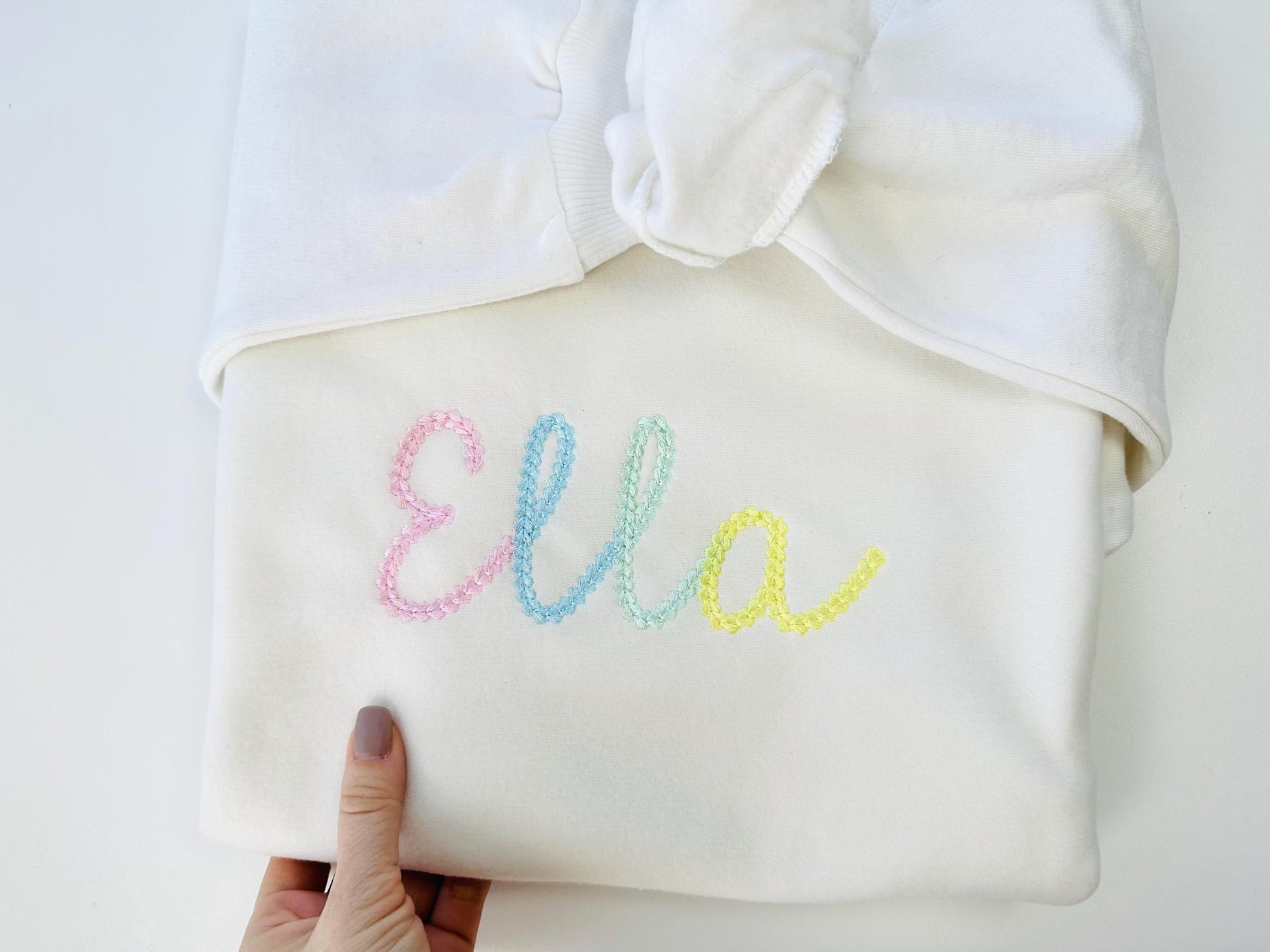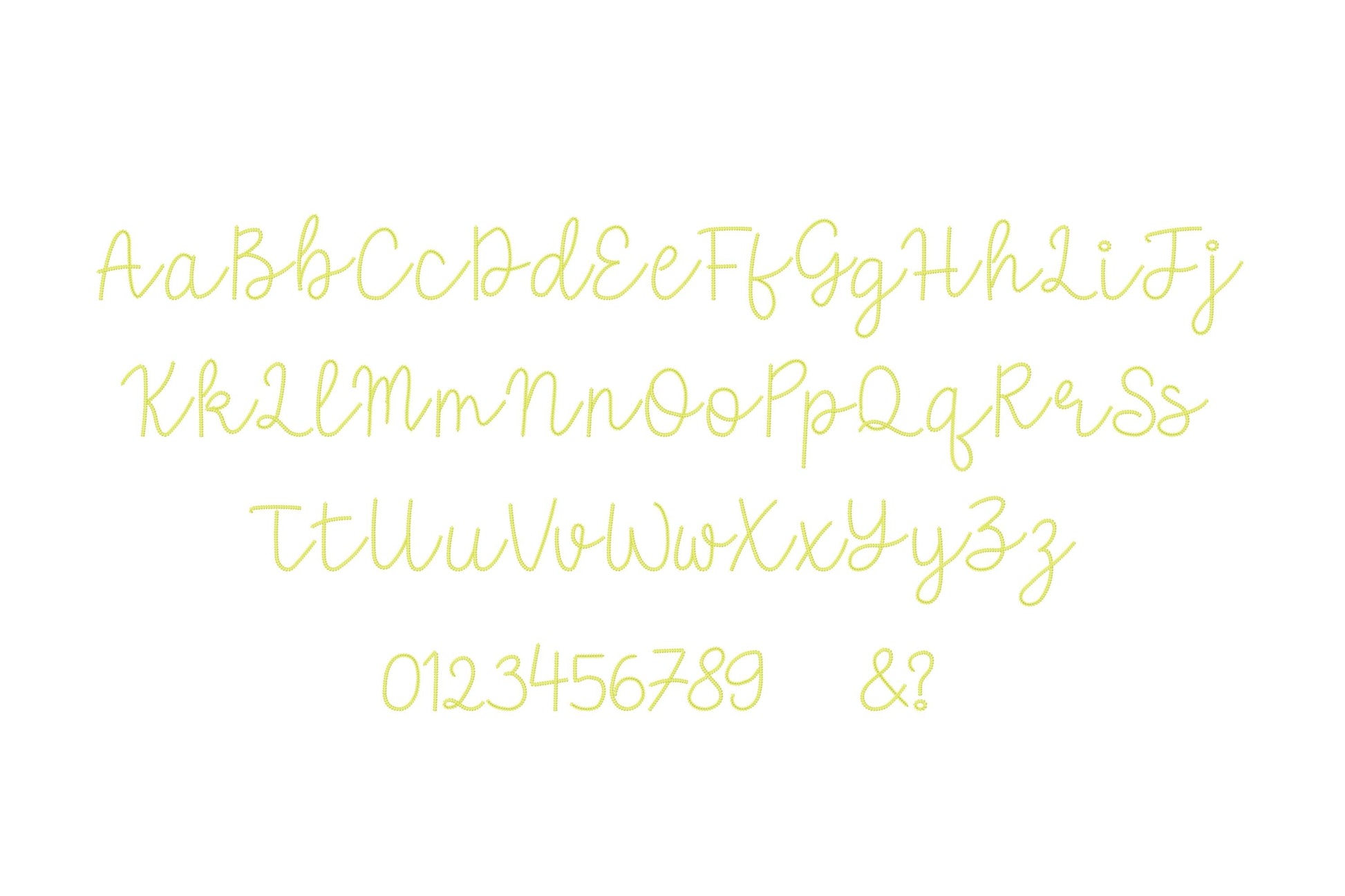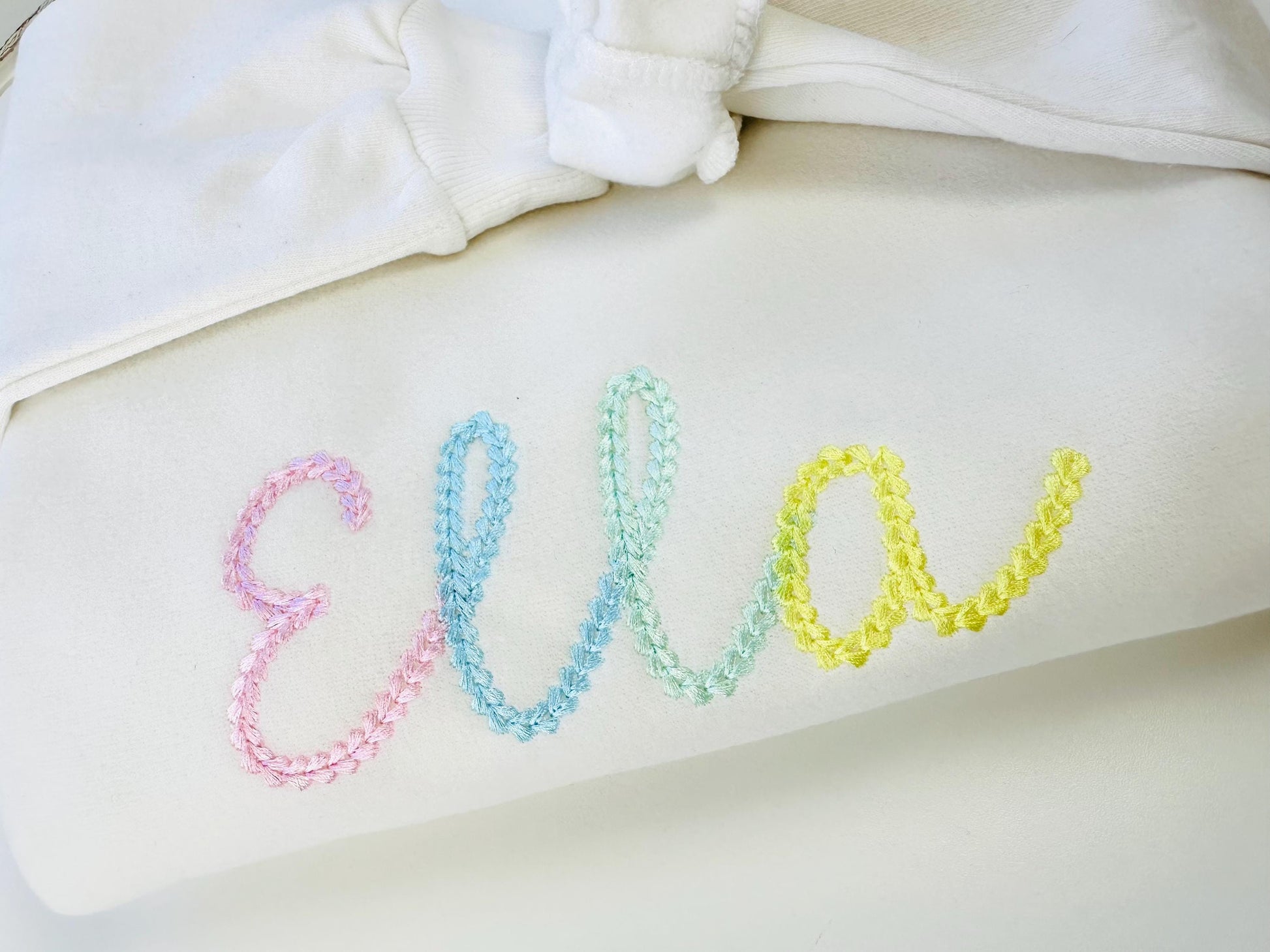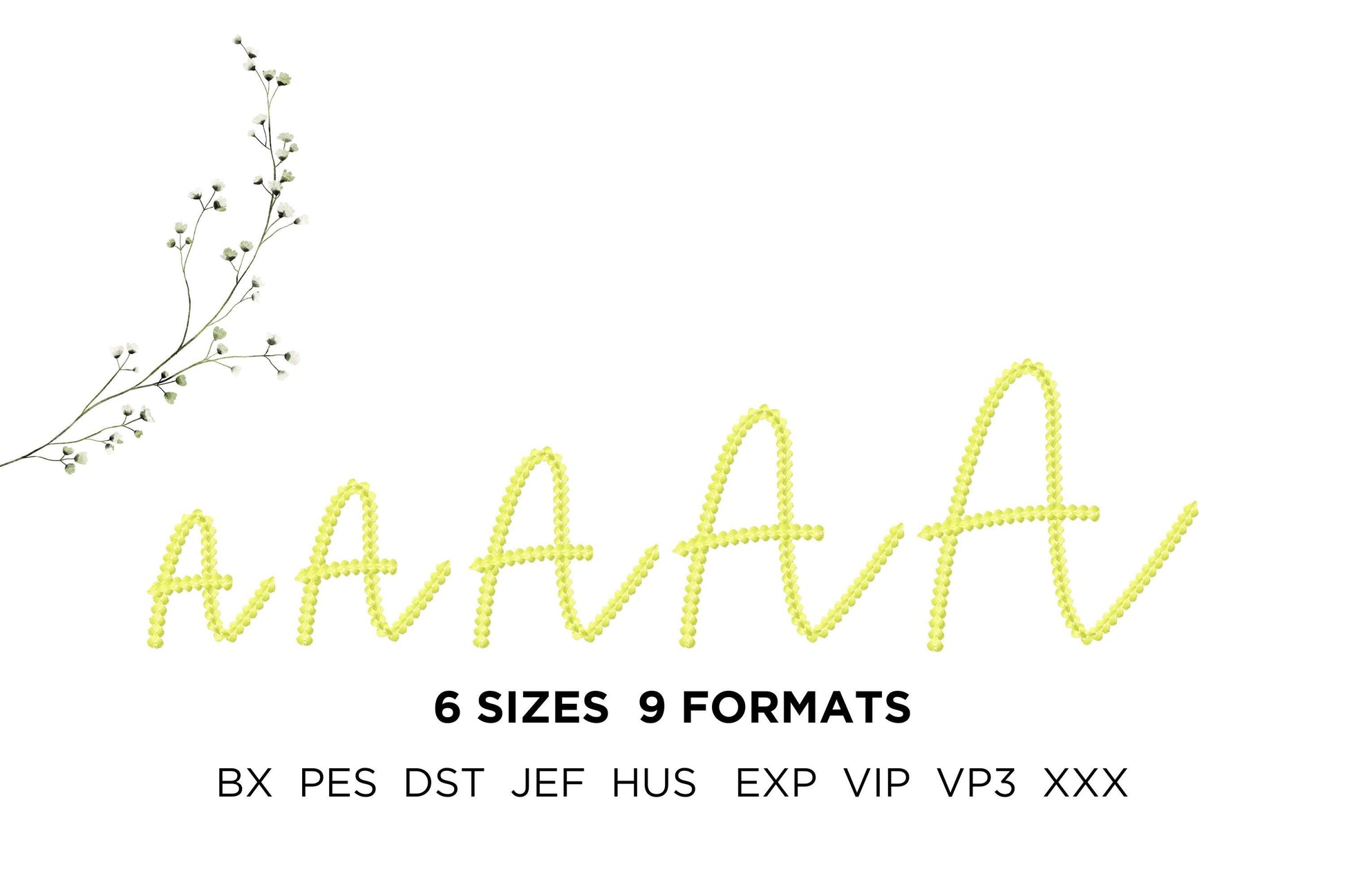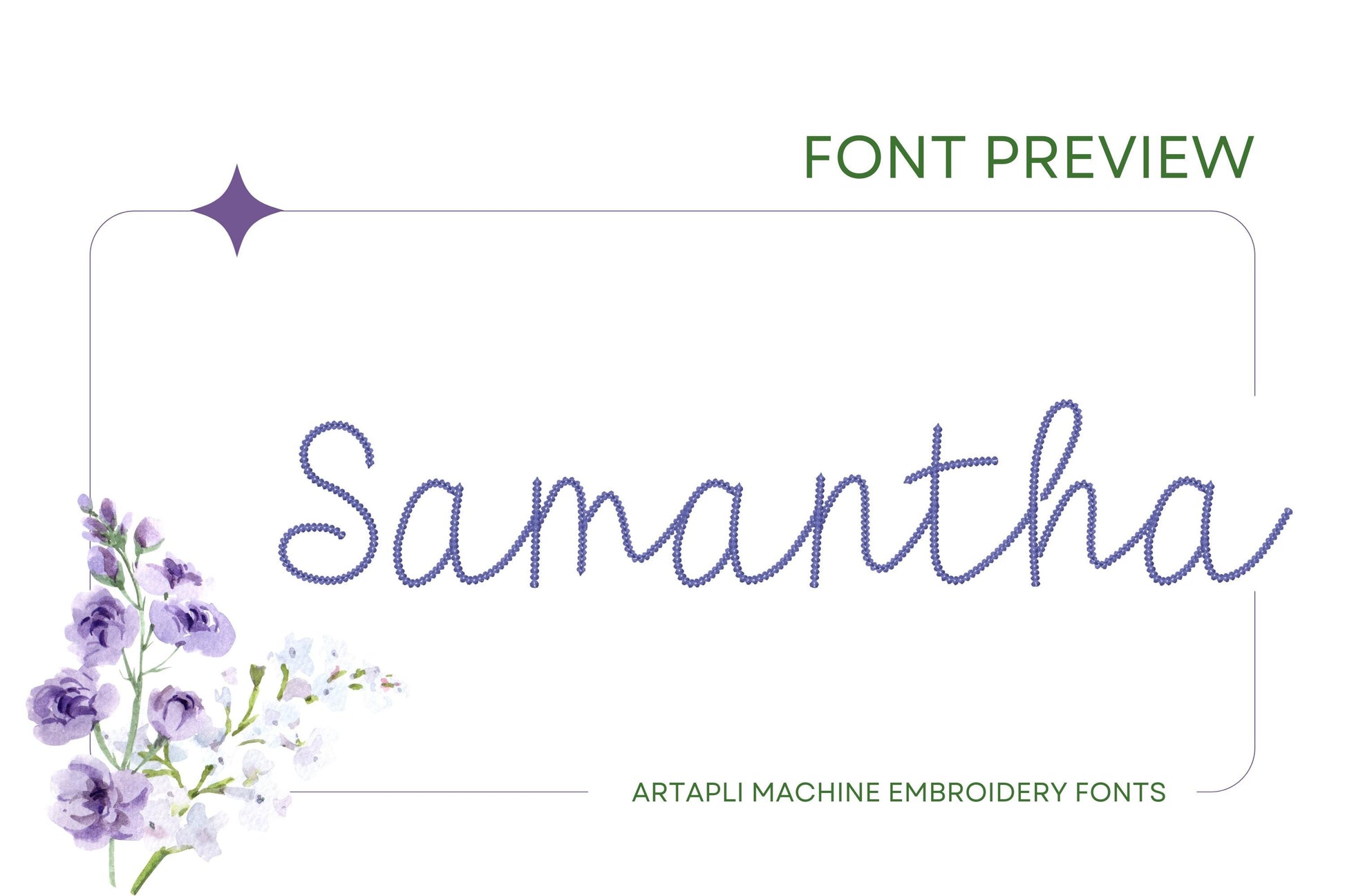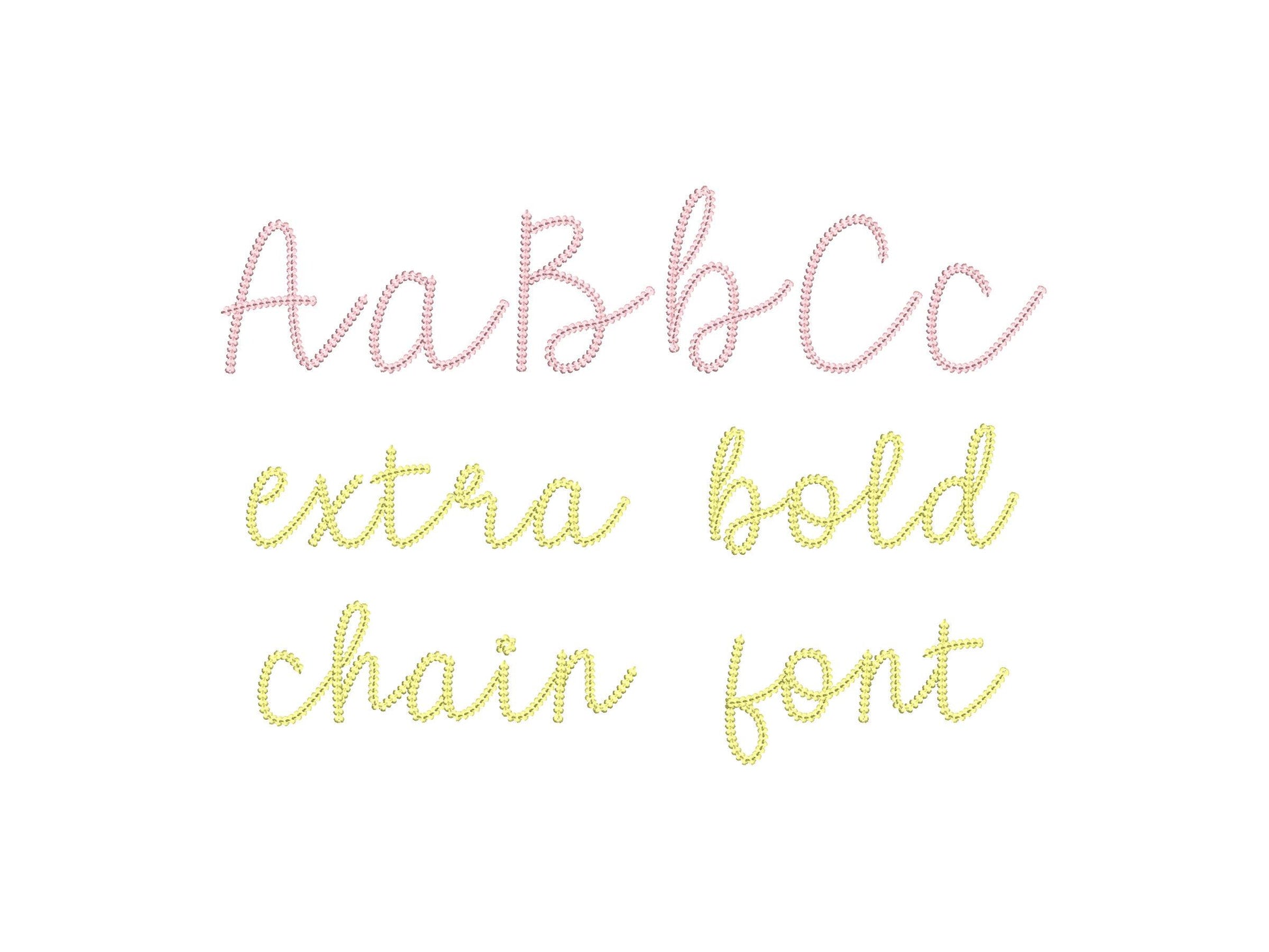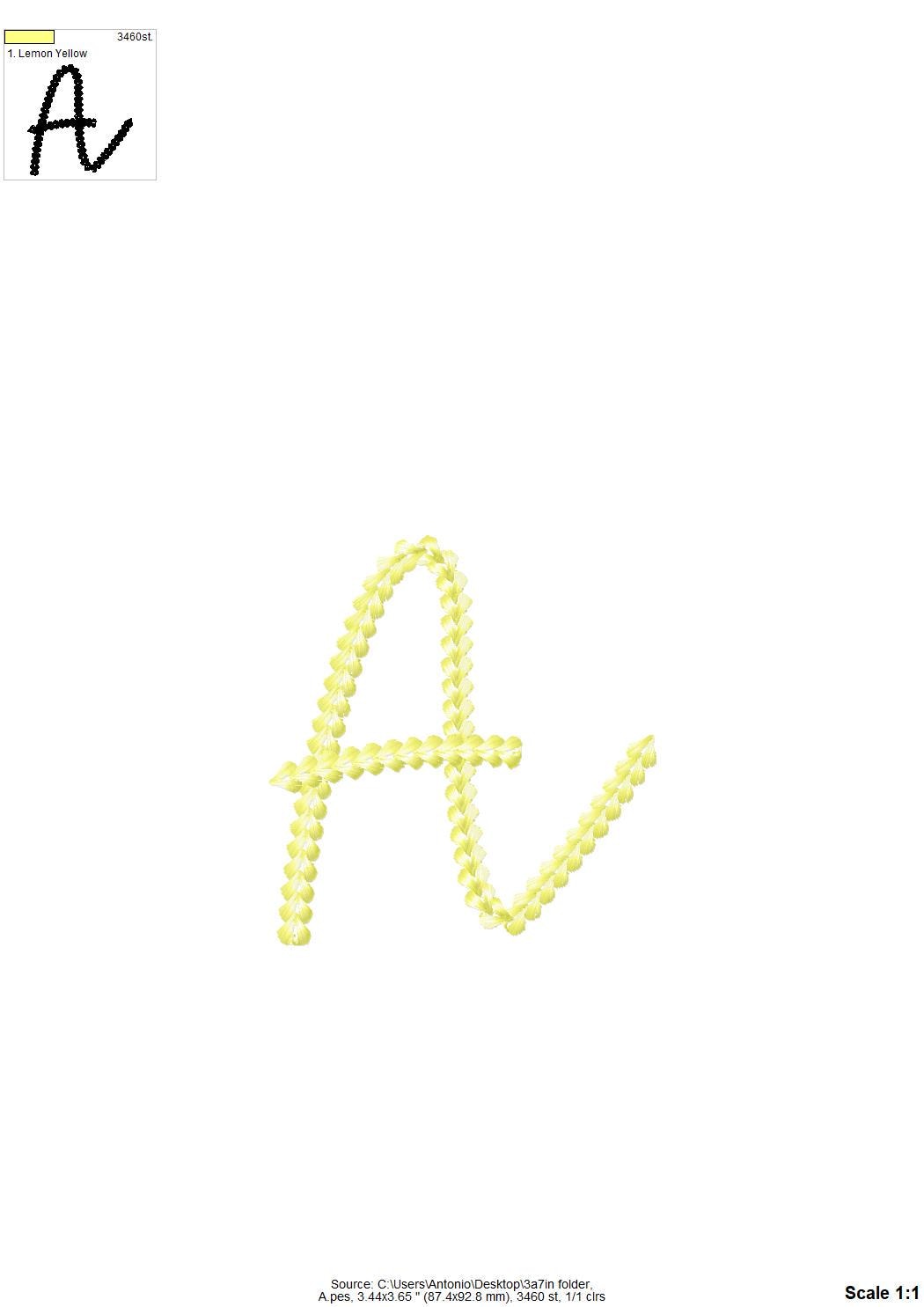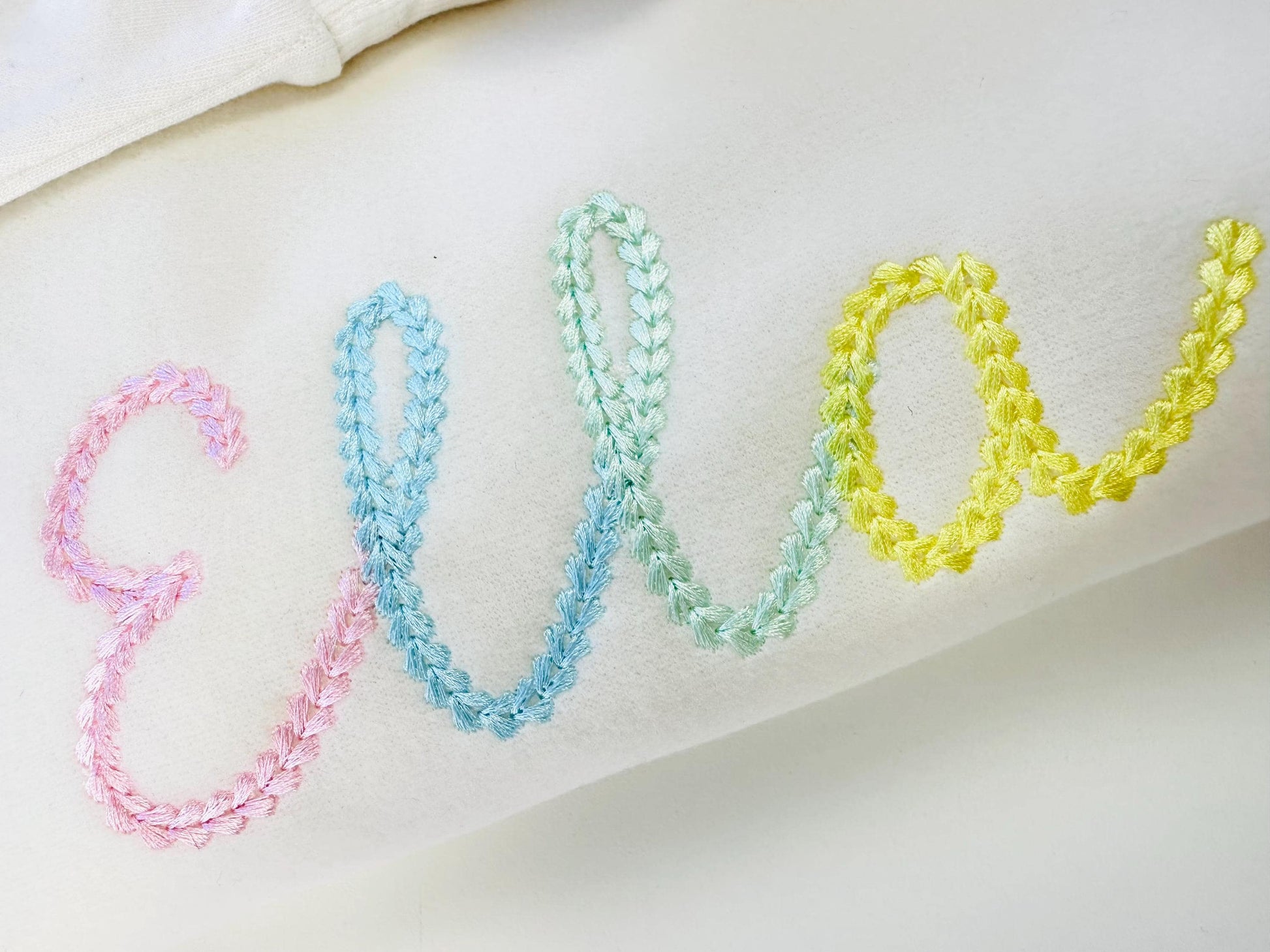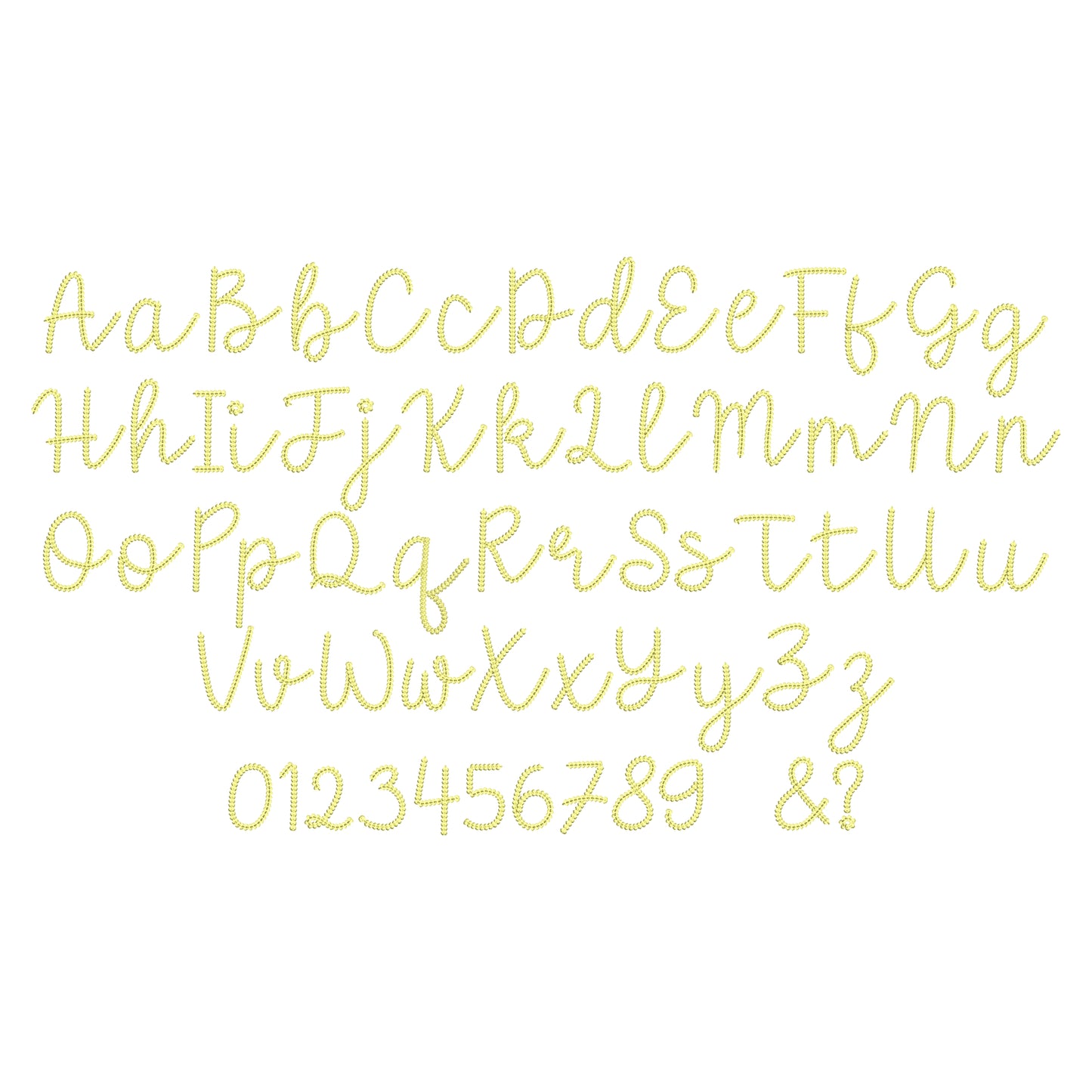
Or click to open the linkAn extra bold chain stitch script with a hand-knit look. Made for names and words on sweaters, sweatshirts, hats and blankets.
Uppercase and lowercase letters, numbers 0 to 9, plus & and ?. Five sizes: 2.5, 3, 3.7, 4.4 and 5.3 inches. Dense chain stitch gives a knit sweater effect.